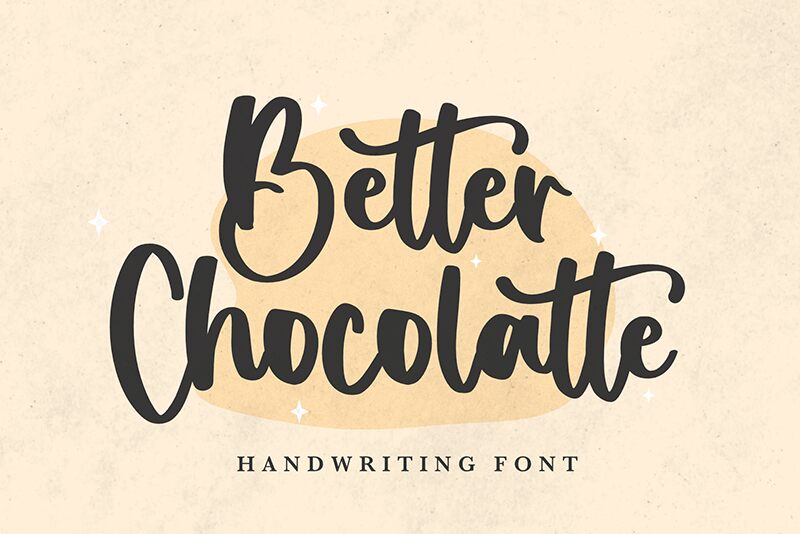
Better Chocolatte
Better Chocolatte font by Viola Type is a beautifully flowing script handwritten font. Letters with zero kerning interact elegantly without any irregular chaotic appearance. Double lowercase l’s in the font get an especially interesting style inspired by the height and structure of a traditional Asian grass blade. Diacritics allow writing in multiple languages ranging from European to Vietnamese.
There are many beautiful ways to start using this free handwritten typeface. Some of those include sport team logos, football jerseys, apparel and clothing items, coffee shops, bakeries, packaging labels, invitations, crafting projects and videos like a tattoo artist vlog or documentary intro.